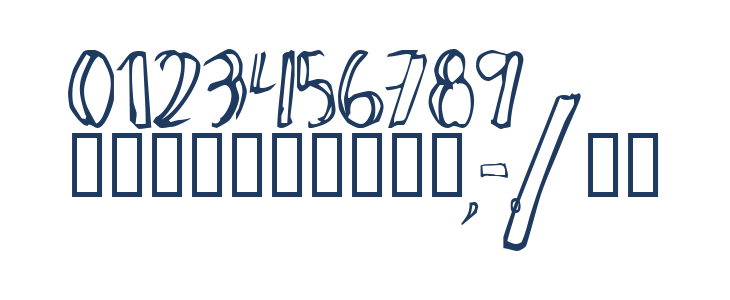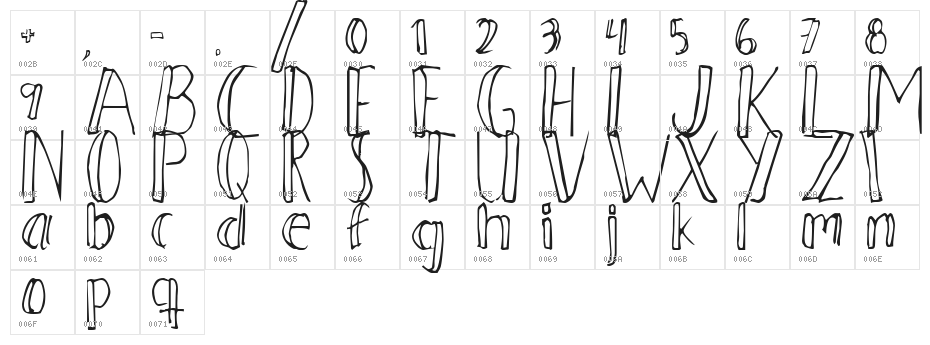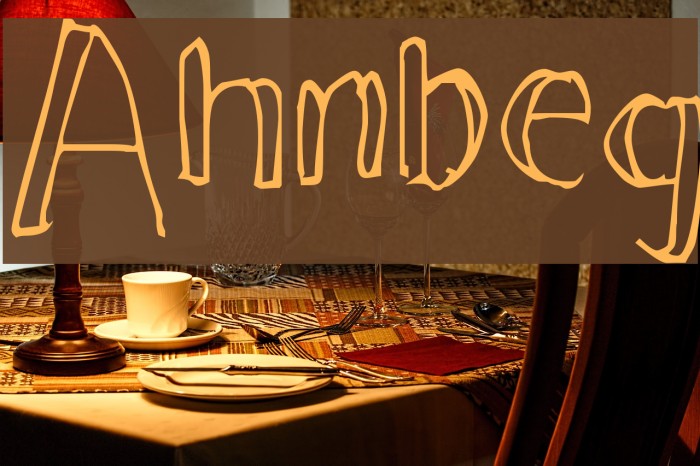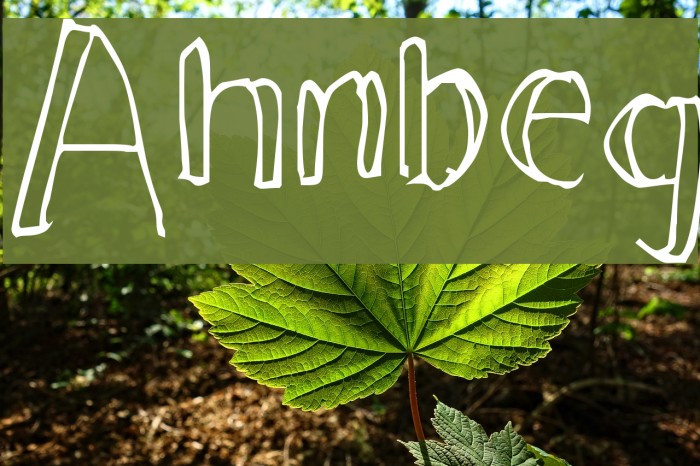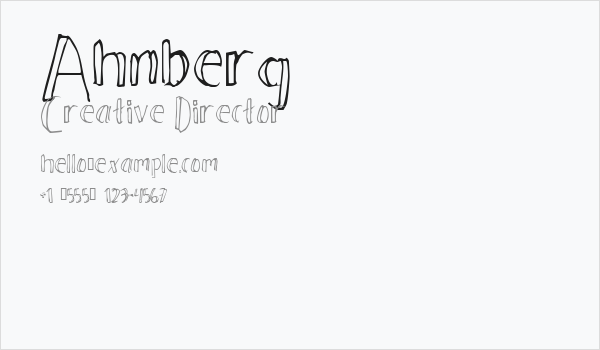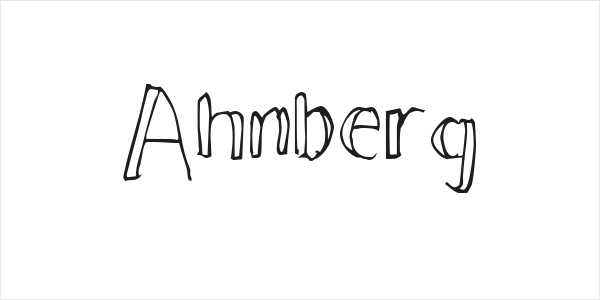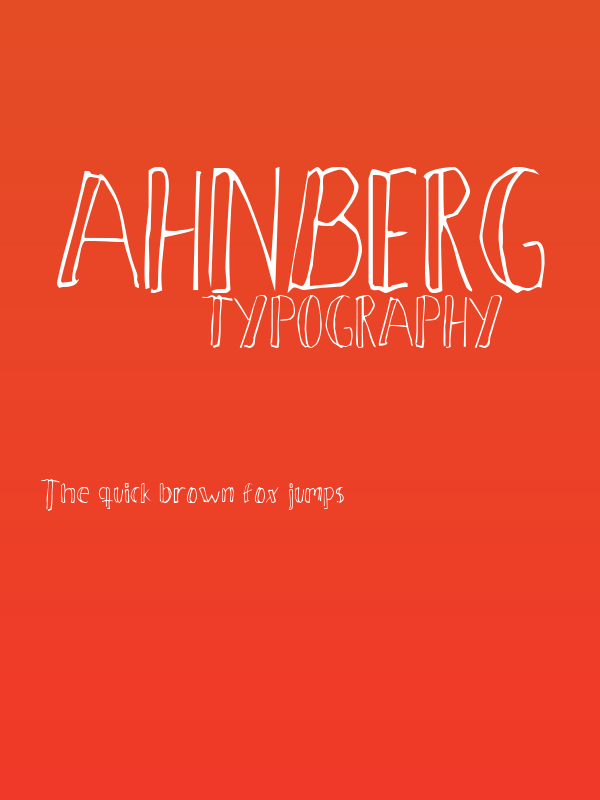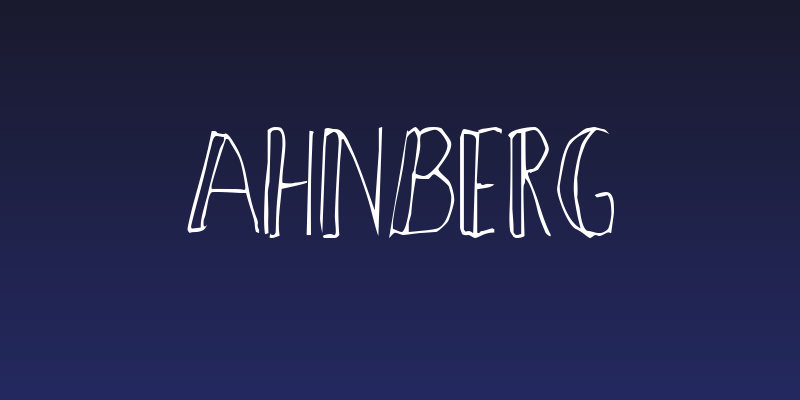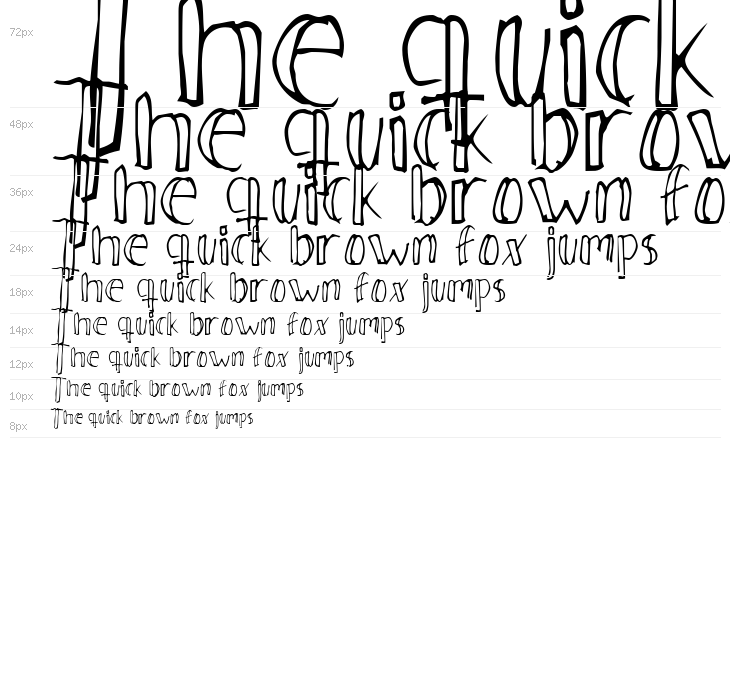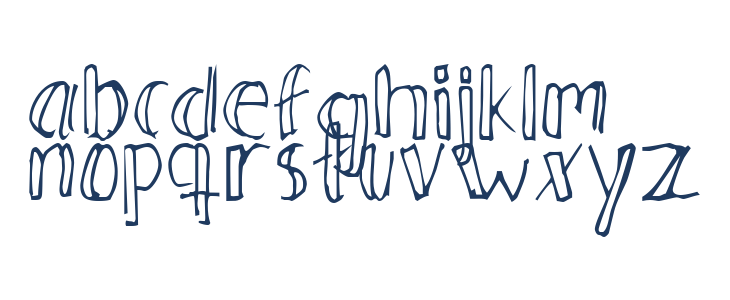
Ahnberg Font
Ahnberg Description
This font features a unique, hand-drawn style with a playful and artistic flair. The characters are slightly irregular, giving them a whimsical and dynamic appearance. The uppercase letters are tall and narrow, while the lowercase letters maintain a consistent height with a more rounded form. Numbers and special characters follow the same artistic style, adding to the font's cohesive look. The strokes vary in thickness, providing a medium contrast that enhances readability while maintaining a creative edge. This font is perfect for projects that require a touch of personality and creativity.
| Proposed Projects | Ideal for creative projects such as children's books, artistic posters, and unique branding materials. |